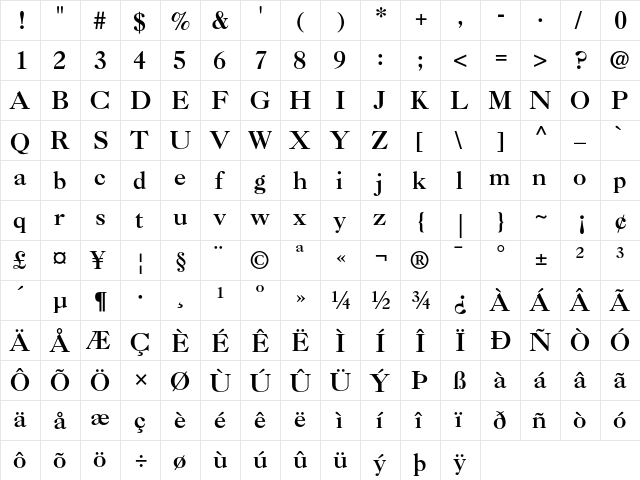
Caslon 3 Roman Font Preview
Caslon 3 Roman
Caslon 3 Roman Font Details
Design Context for Caslon 3 Typeface
Caslon 3 offers clean, dependable letterforms without strong stylistic allegiance, making it a practical choice for designers who need flexibility.
Pro Tip: Pair Caslon 3 with a font of contrasting weight or personality to build a more expressive typographic hierarchy.